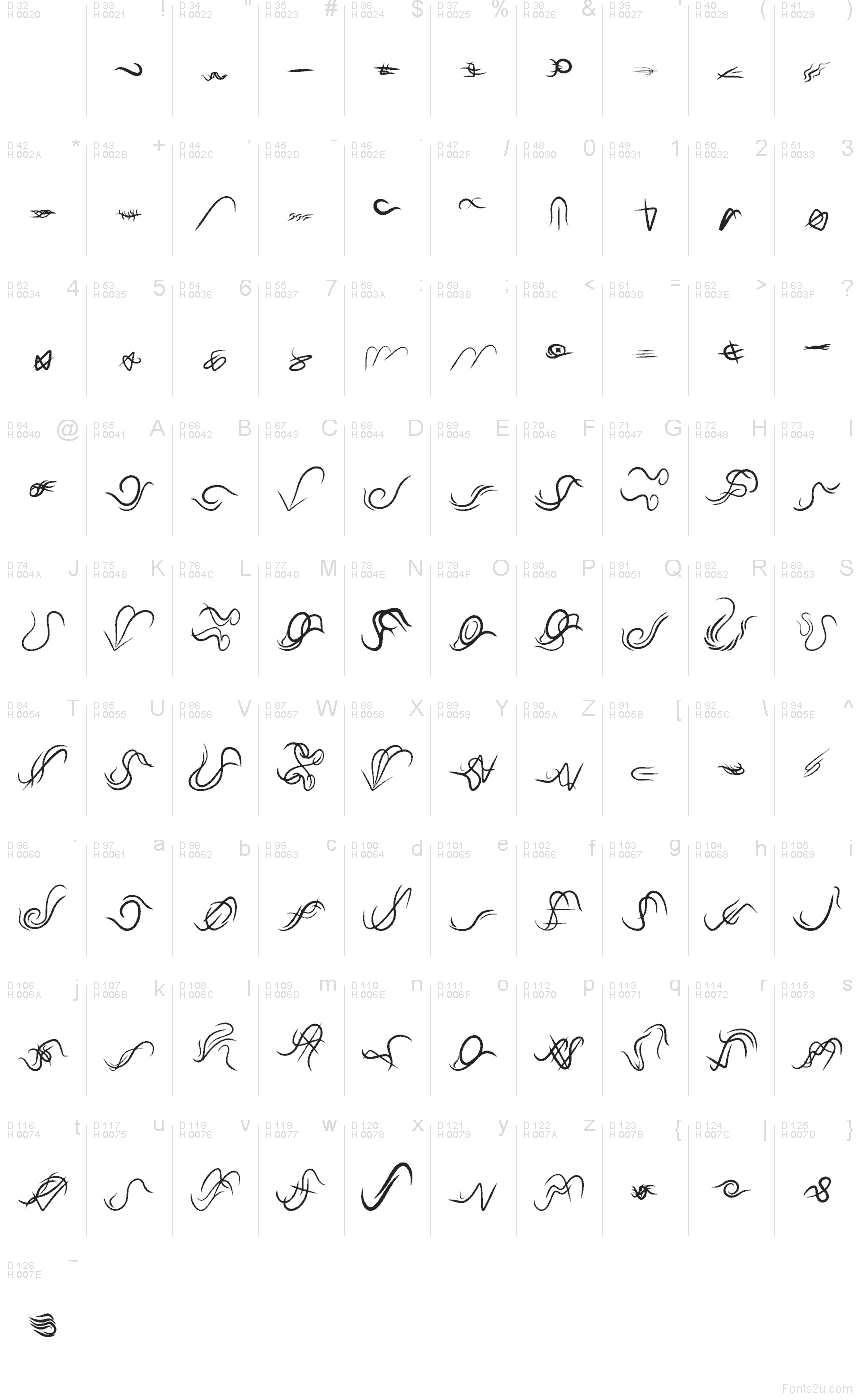
Voidyzian Glyphs font by Lilyana Rastolin is a free occult dingbat typeface that turns your keyboard into a library of Void Demon symbols. Each mark looks hand‑inked and ritualistic, with curling strokes, hooked angles, and eerie, smoke‑like trails that feel pulled from a forbidden grimoire. The set has a consistent rhythm, so you can scatter symbols like falling ash or arrange them into dense, repeating sigil bands without the layout feeling chaotic.
Using Voidyzian Glyphs, you can quickly drop authentic‑looking demonic icons into TTRPG handouts, dark fantasy book covers, horror posters, game UIs, occult merch, or sticker and tattoo mockups. This free font shines when you treat the glyphs as texture-run them in a long horizontal strip for borders, then pair them with a clean geometric sans serif to keep your titles readable and your symbols deliciously unsettling.
Voidyzian Glyphs
A font that is used for quick reference of Voidyzian glyphs. Not for normal typing.